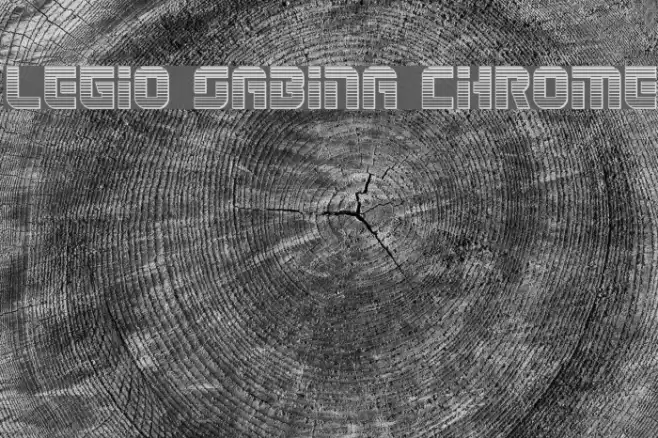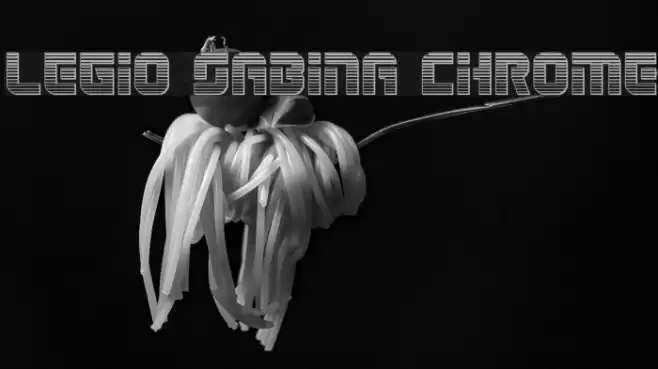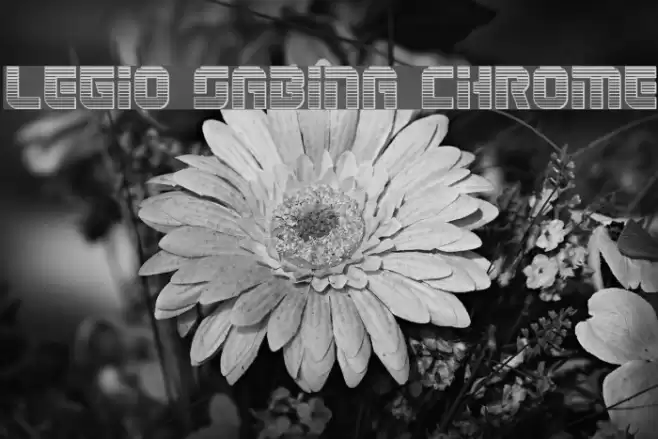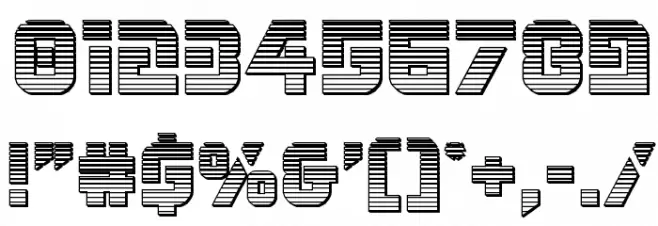
Legio Sabina Chrome Font
Legio Sabina Chrome Description
This font features a bold, futuristic design with a distinct chrome-like appearance. The characters are constructed with multiple parallel lines, creating a layered, three-dimensional effect. The geometric shapes and sharp angles give it a modern and industrial feel, making it stand out in any design. The uppercase and lowercase letters maintain a consistent style, while the numerals and special characters complement the overall aesthetic. This font is ideal for projects that require a strong visual impact and a contemporary look.
A bold, futuristic font with a chrome-like, layered design from Uncategorized fonts.
- Proposed Projects: Ideal for sci-fi themed projects, technology branding, video game titles, and modern posters.